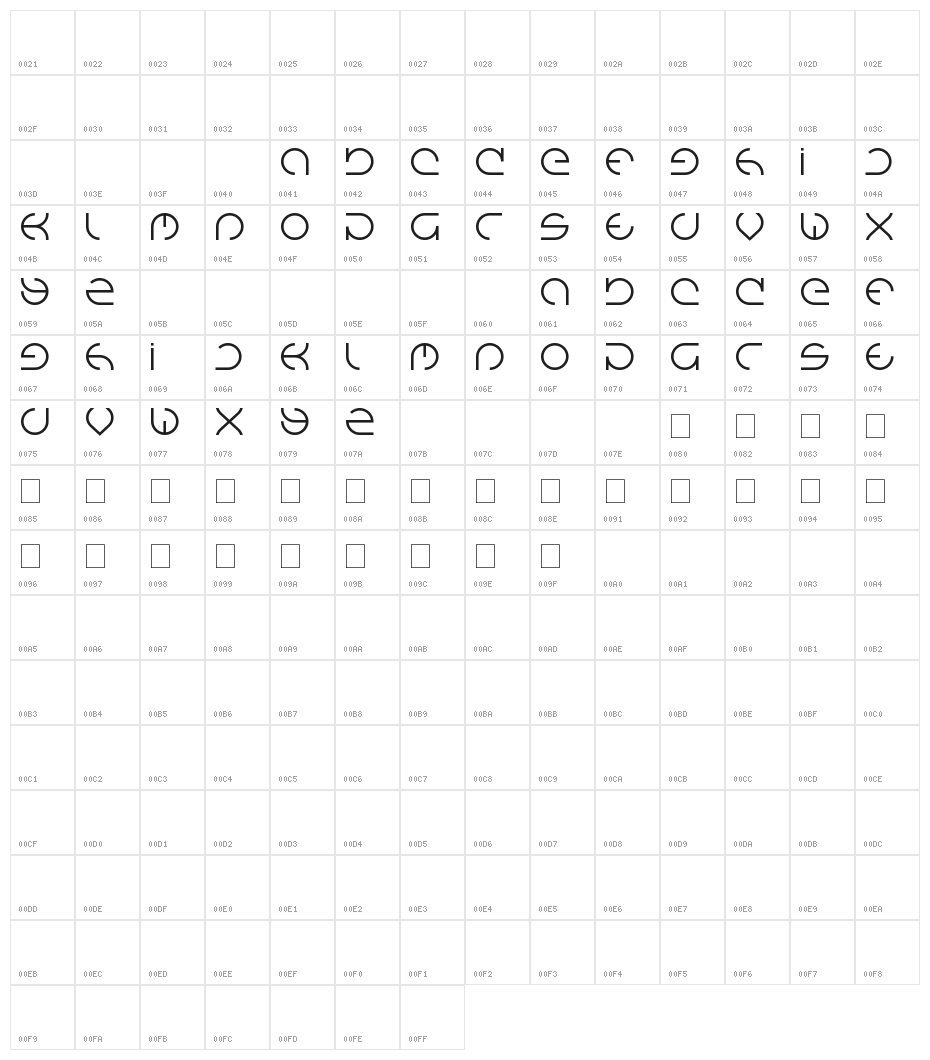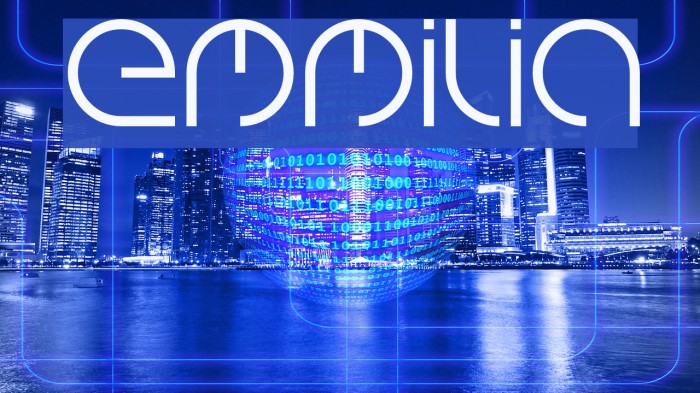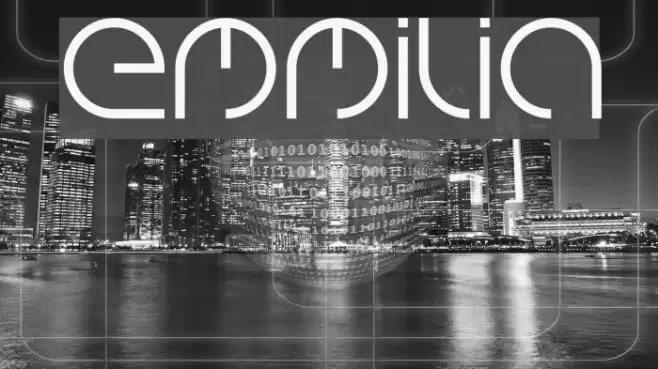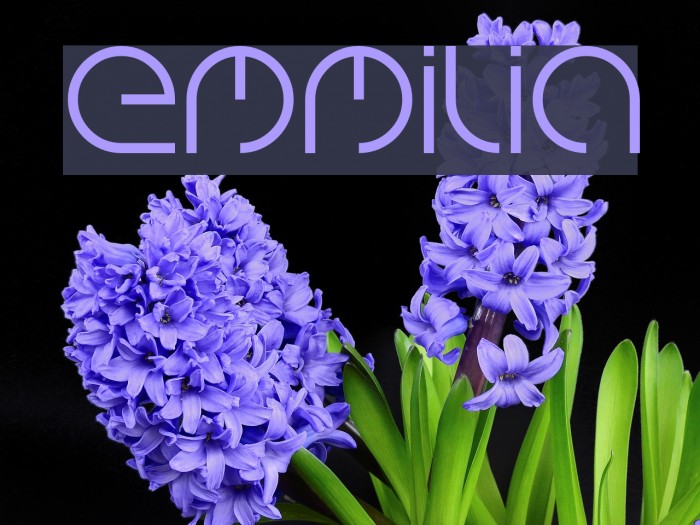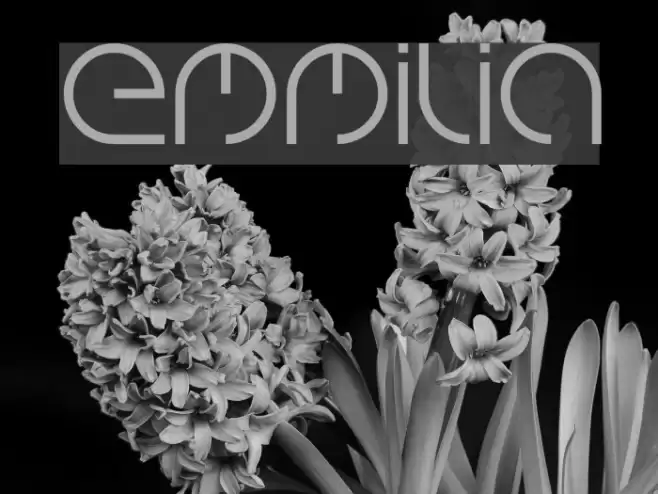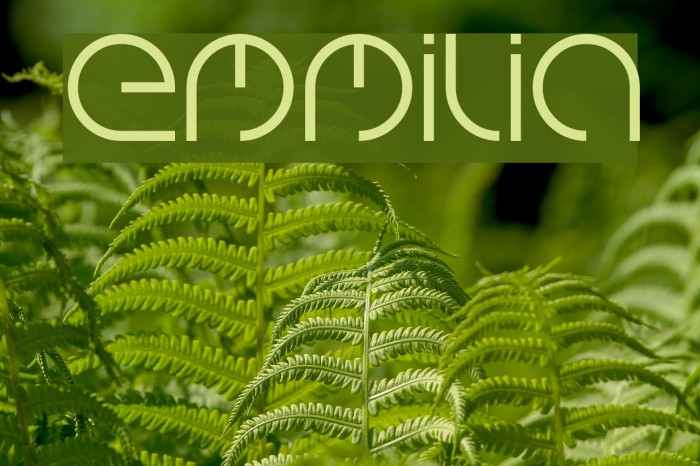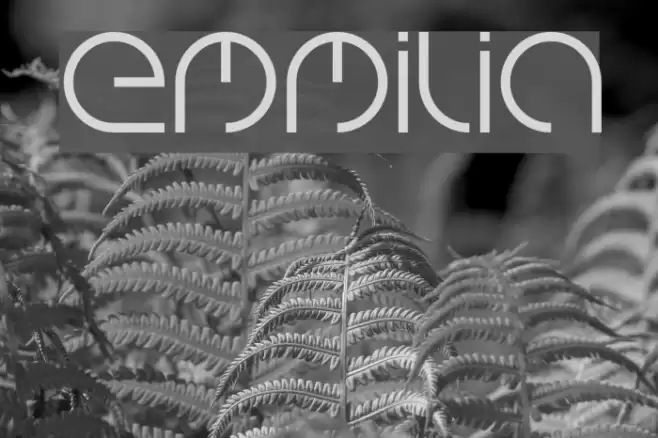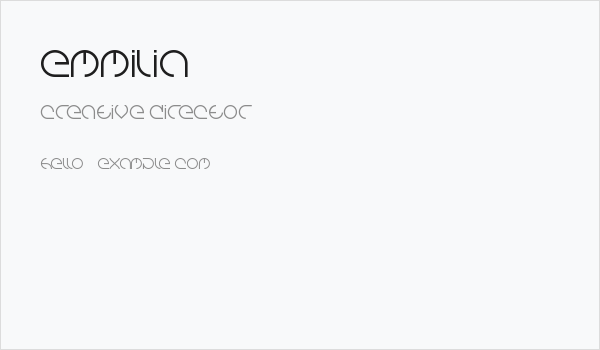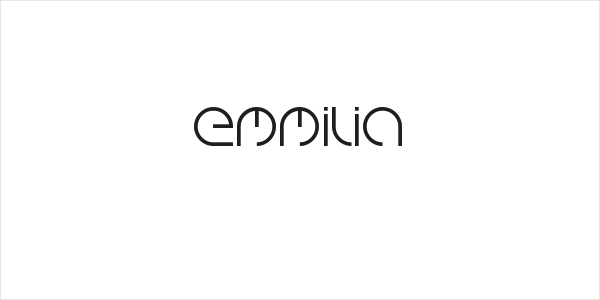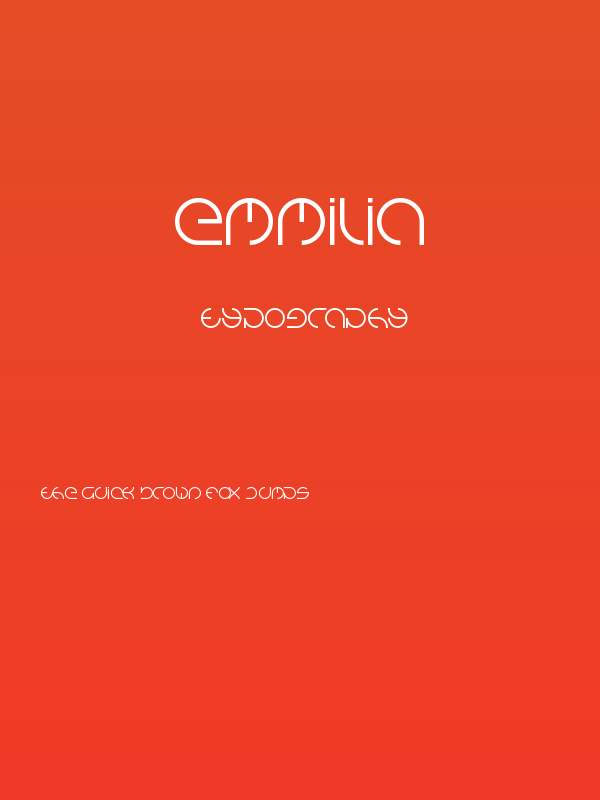
emmilia Font
emmilia Description
This font features a futuristic and geometric design, characterized by its unique and abstract letterforms. Each character is crafted with a combination of curves and straight lines, creating a sense of movement and modernity. The font maintains a consistent stroke width throughout, giving it a clean and uniform appearance. Its distinctive style makes it stand out, with letters that are both minimalistic and visually intriguing. The overall aesthetic is sleek and contemporary, suitable for projects that aim to convey innovation and forward-thinking.
| Proposed Projects | Ideal for tech branding, sci-fi themed designs, modern art posters, and innovative product packaging. |